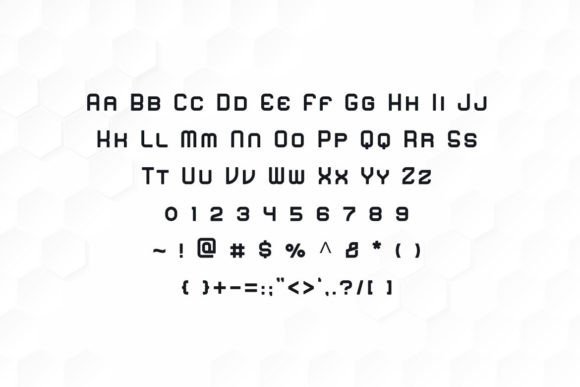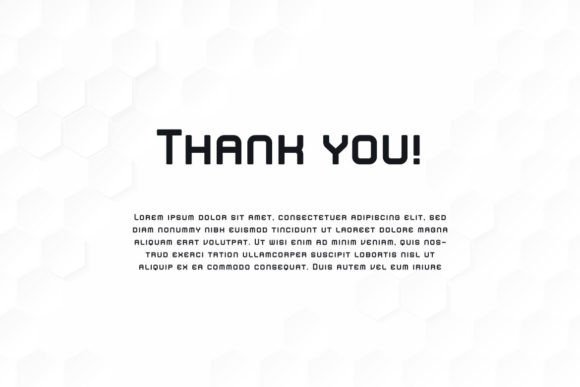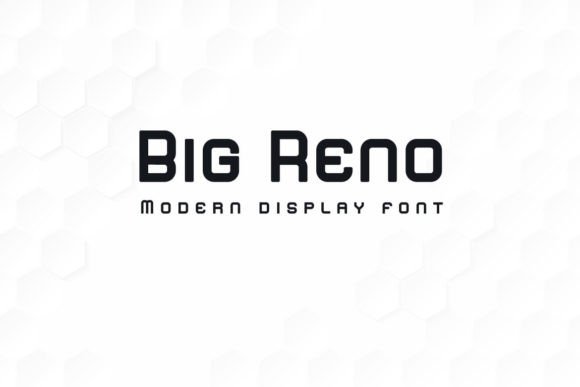
The Big Reno Font: A Bold and Beautiful Choice for Designers
I’ll never forget the time I was working on a branding project for a new food truck, and my client asked me to create a logo that would stand out on their colorful vehicle. I spent hours scouring font websites, but nothing seemed quite right. That was until I stumbled upon the Big Reno font. Its strong personality and bold design immediately caught my eye, and I knew it was the perfect choice for the project.
Big Reno has a unique charm that makes it perfect for display projects, from branding and logos to candy and food packages. In this article, I’ll share my honest review of the font, provide a practical guide on how to use it, and explore similar fonts and alternatives.
- ✅ Unique personality: Big Reno has a bold and eye-catching design that grabs attention.
- ✅ Versatility: It’s perfect for a wide range of applications, from branding and logos to packaging and advertising.
- ✅ Easy to read: Despite its bold design, Big Reno is surprisingly easy to read, even at smaller sizes.
- ⚠️ Limited use in body text: Big Reno is best used for display purposes, as it can be overwhelming for longer blocks of text.
- ⚠️ Some kerning issues: As with any font, there may be some kerning issues, especially when using all caps or mixing with other fonts.
The Story Behind Big Reno
Big Reno was designed by a team of creatives who wanted to create a font that would stand out in a crowded design world. Inspired by the bold and playful vibe of the American Southwest, Big Reno is a font that’s meant to make a statement. Whether you’re designing a logo, packaging, or advertising, Big Reno is the perfect choice.
Q: What is the Big Reno font?
A: Big Reno is a bold and beautiful font designed for display purposes. It’s perfect for branding, logos, packaging, and advertising.
Q: Can I use Big Reno for body text?
A: While Big Reno is easy to read, it’s best used for display purposes. For longer blocks of text, consider using a more traditional font.
Q: Does Big Reno support OpenType features?
A: Yes, Big Reno supports OpenType features, including glyphs and stylistic alternates. This allows for more creative freedom and flexibility in your designs.